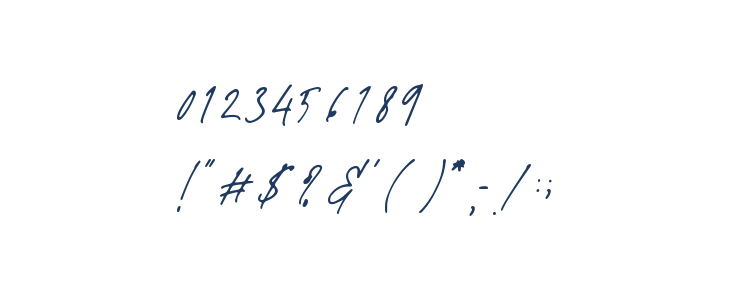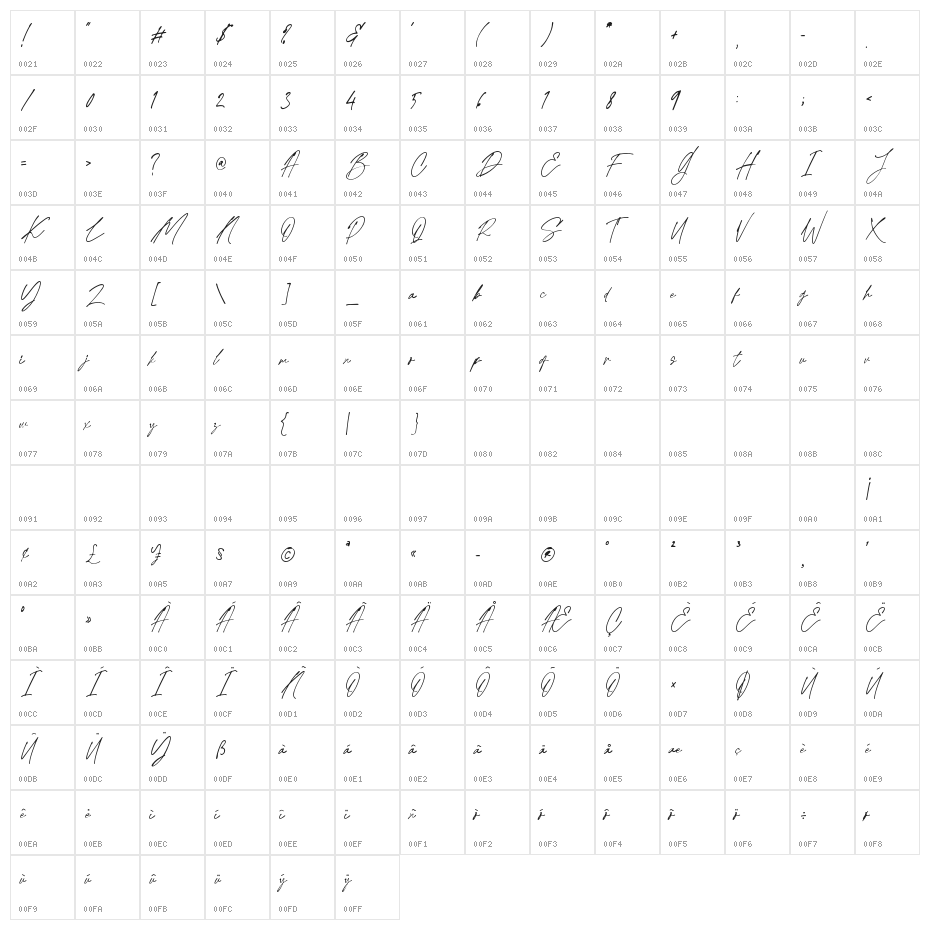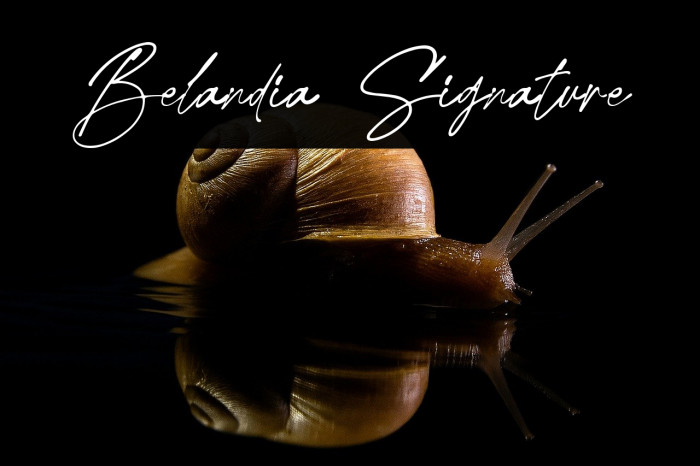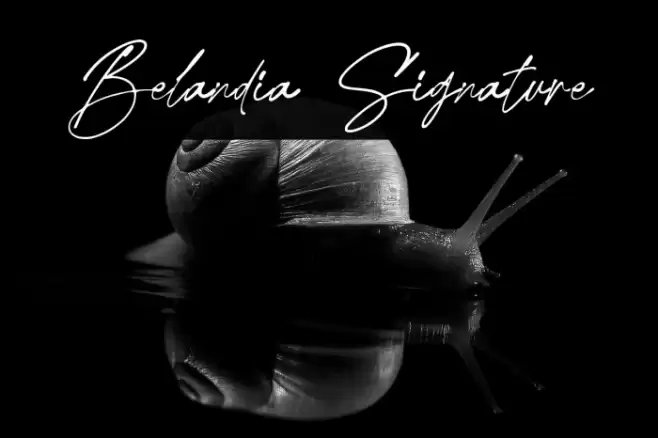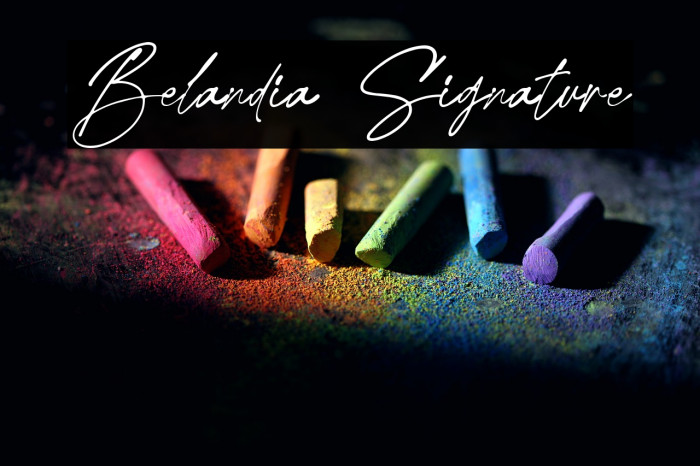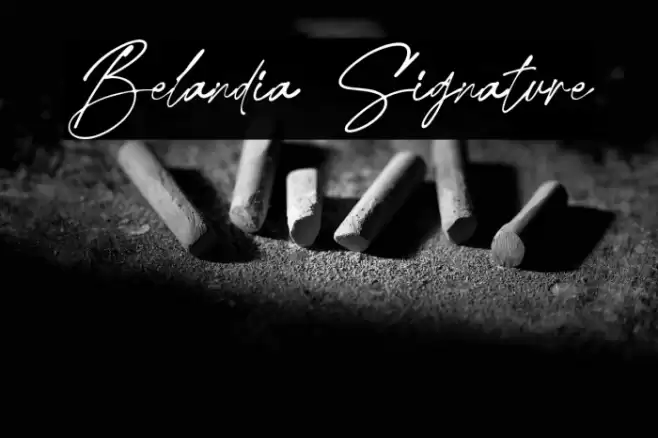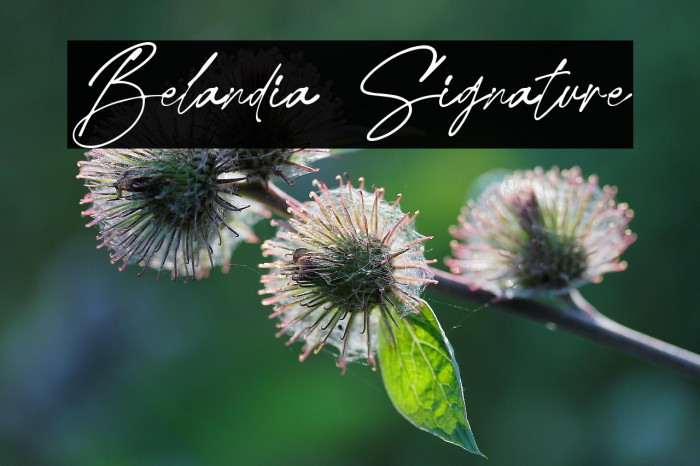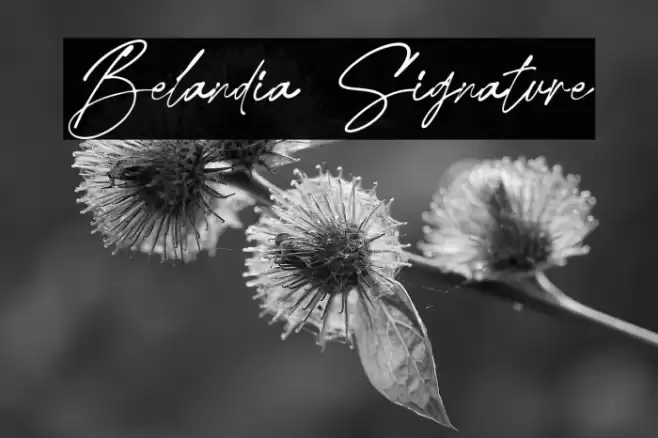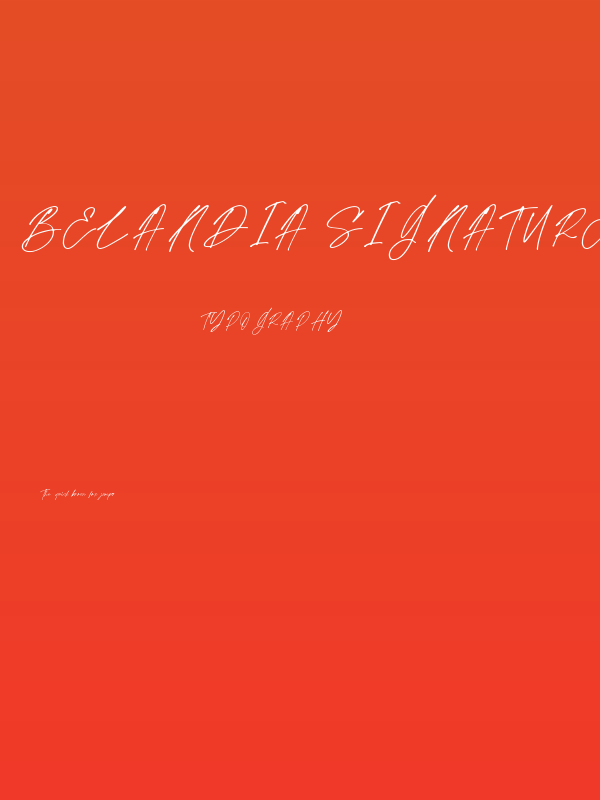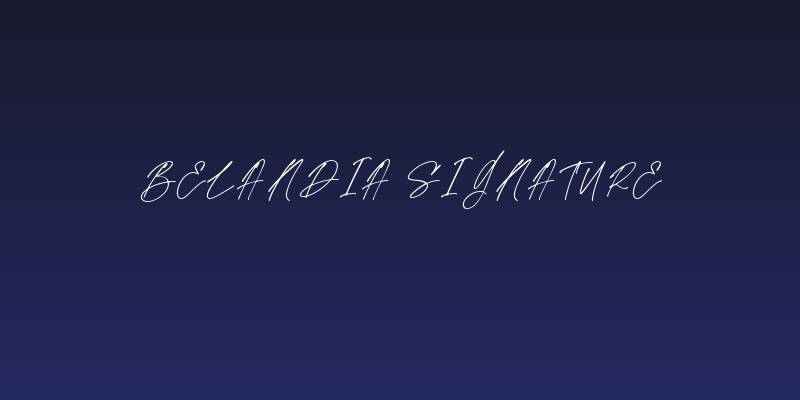
Belandia Signature Font
Belandia Signature Description
This elegant script font exudes a sense of sophistication and fluidity, characterized by its flowing, cursive letterforms. The uppercase letters are tall and graceful, with sweeping ascenders and descenders that give the font a dynamic and lively appearance. The lowercase letters maintain a consistent style, with smooth connections between characters, enhancing the handwritten aesthetic. The numerals are stylish and complement the overall script style, while the special characters are crafted to match the font's elegant theme. This font is perfect for projects that require a personal touch, such as invitations, branding, and logos.
| Proposed Projects | Ideal for wedding invitations, personal branding, elegant logos, and stationery design. |